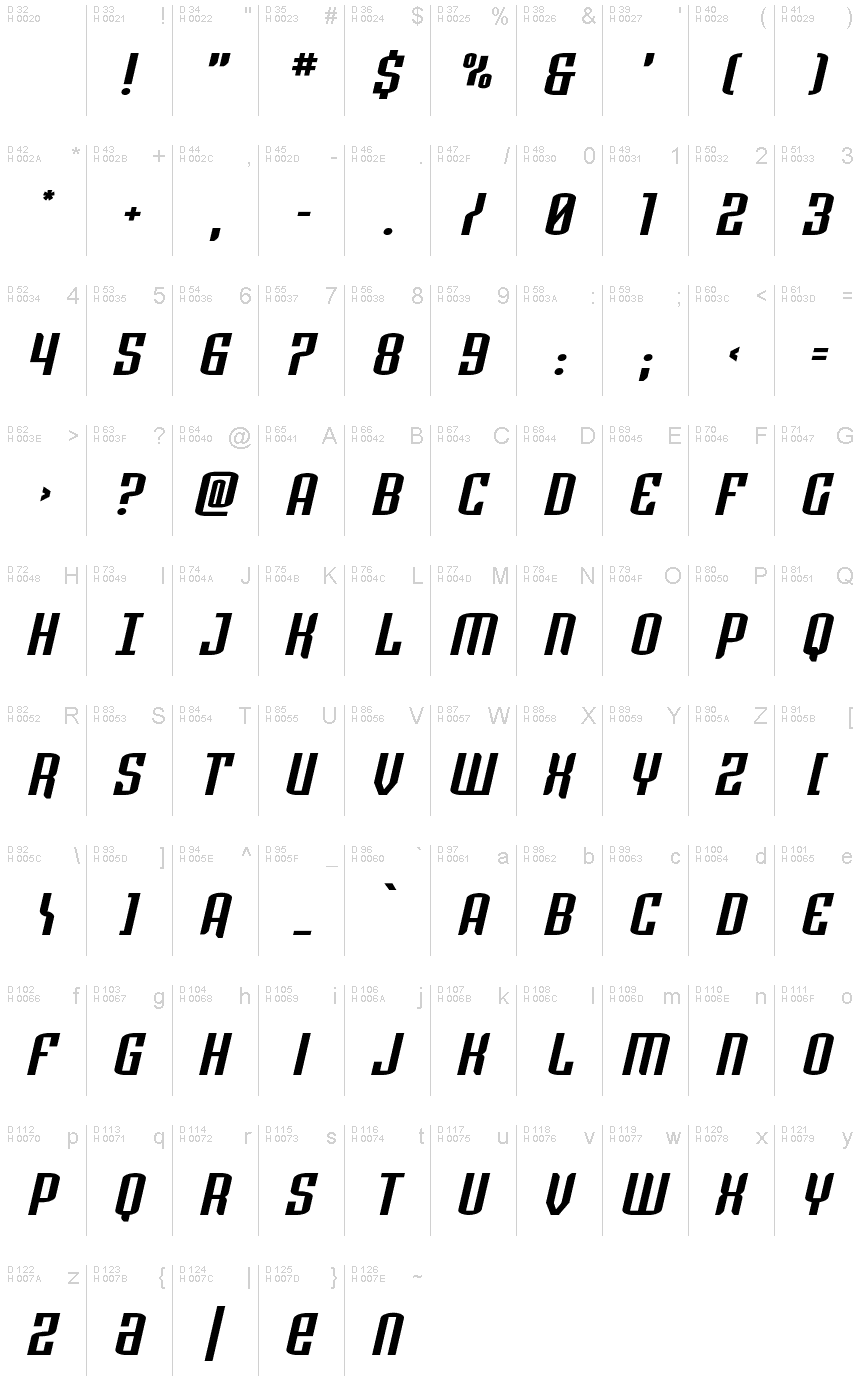
Icewave Expanded Italic
Icewave Expanded Italic is a cutting-edge display font by Iconian Fonts. With its sleek and futuristic design, this techno-inspired typeface is perfect for projects that require a modern and edgy feel. The extra-condensed width allows for efficient use of space, making it ideal for headlines, logos, and branding materials. Whether you're creating a tech startup website or designing a high-tech magazine cover, Icewave Expanded Italic will make your content stand out with its bold and captivating style. Unleash the power of Icewave Expanded Italic and take your design projects to new dimensions!